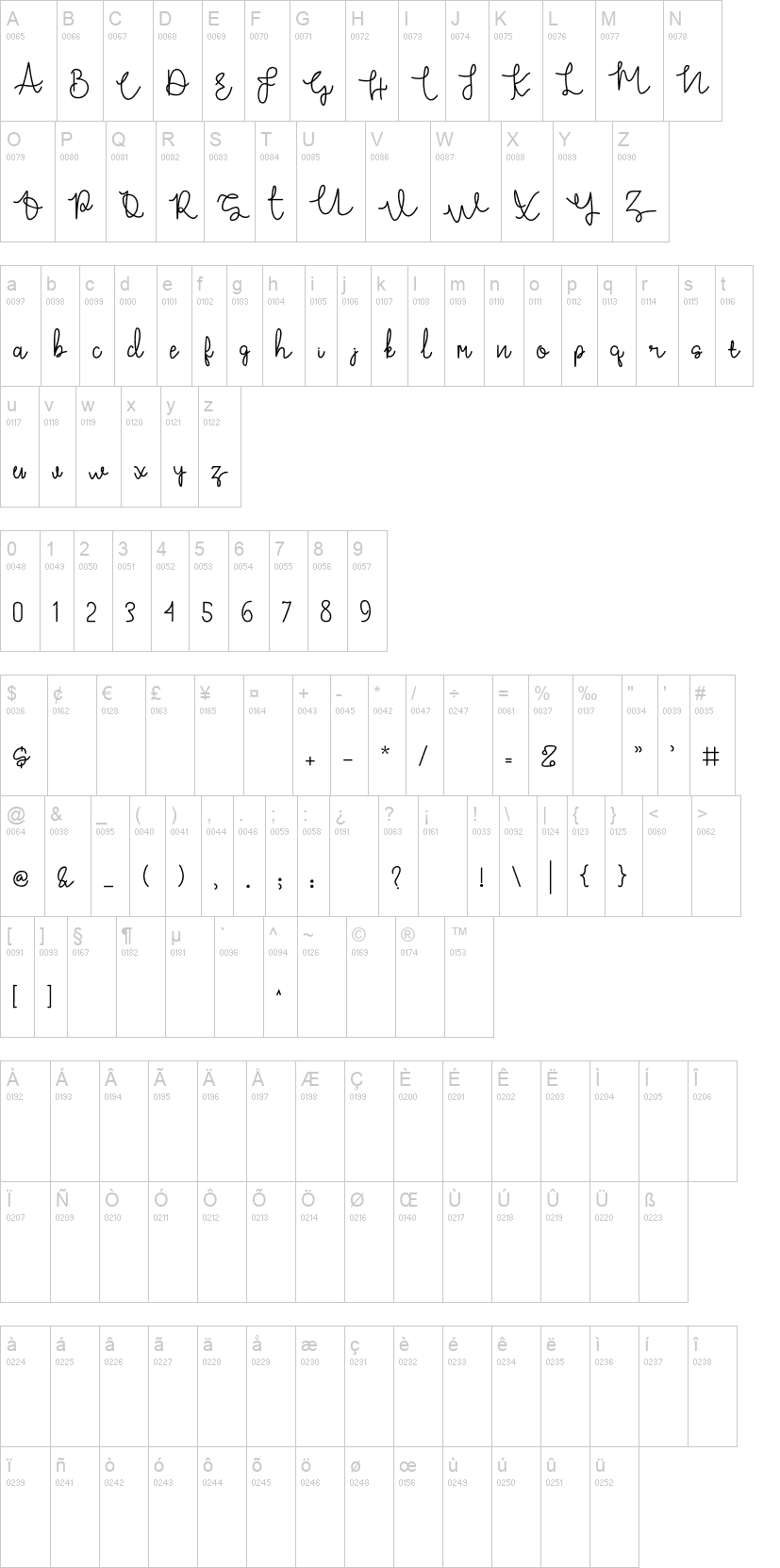
Bridal Tale
Note of the authorBridal Tale, a modern calligraphy font, designed with the mix of modern and handwritten vibe.
It’s a must have font for your various purposes such as digital banners, wedding events, for your social media branding, logo, t-shirt, printed invitations, and many more!